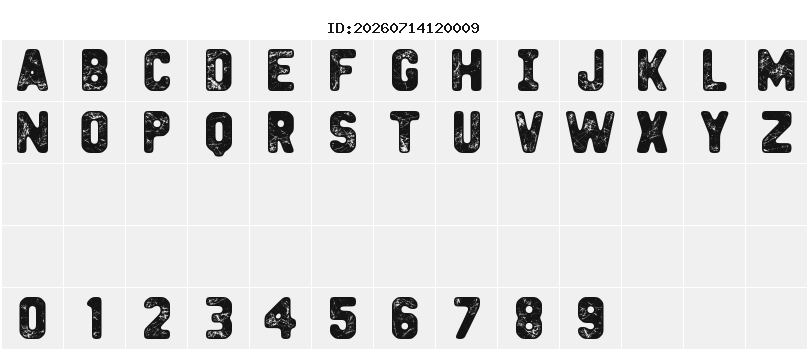
Heavy Metal Box Preview
• Font Name: Heavy Metal Box
• Full Font Name: Heavy Metal Box
• Designer: IMAGEX
About Heavy Metal Box.ttf
Heavy Metal Box.ttf is a modern, elegant sans-serif font designed for ultimate readability and visual harmony. Perfect for branding, headlines, web design, and print materials.